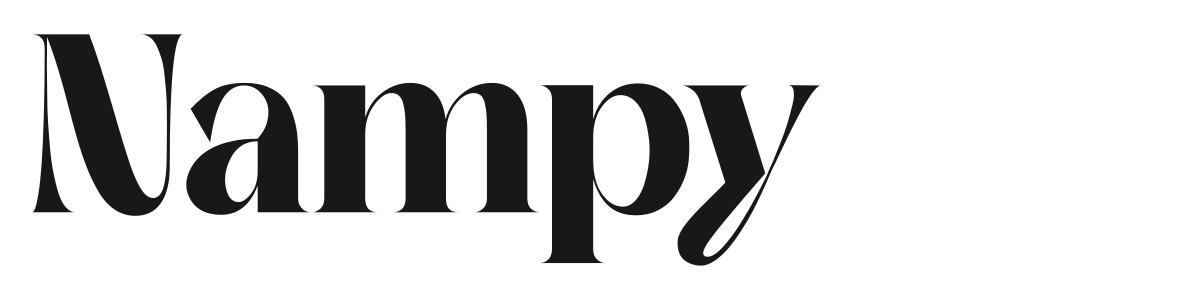
Nampy
Nampy is a bold didone serif with extreme thick-thin stroke contrast and wide, confident proportions. The heavy stems push toward display weight while hairline serifs stay razor-fine, producing the dramatic tension that defines high-fashion editorial typography. It sits comfortably in the company of Vogue mastheads and luxury brand identities.